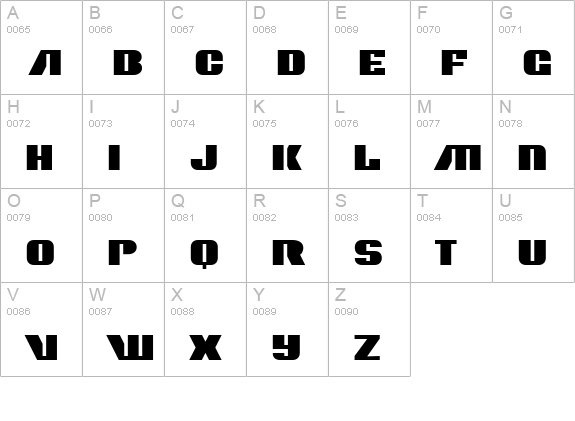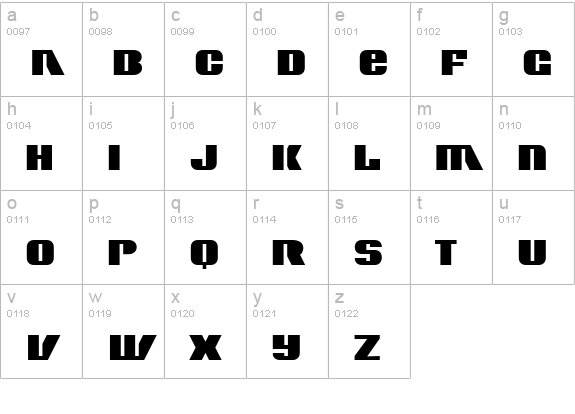
Contour Generator Font Details
Introducing Contour Generator font - a versatile and modern typeface that is perfect for adding a touch of elegance and sophistication to your projects. This unique font features a beautiful combination of sleek lines and sharp edges, creating a stunning contour effect that will make your designs stand out. Contour Generator font is ideal for a wide range of design projects, including logos, branding, posters, and more. Its clean and stylish appearance makes it suitable for both digital and print applications, ensuring that your message is conveyed with clarity and impact. What's more, Contour Generator font is available for free download at FontsMarket.com. This means that you can easily access this high-quality font and start using it in your projects right away. Don't miss out on this fantastic opportunity to enhance your designs with the elegant and modern style of Contour Generator font. Download it now and take your creations to the next level!